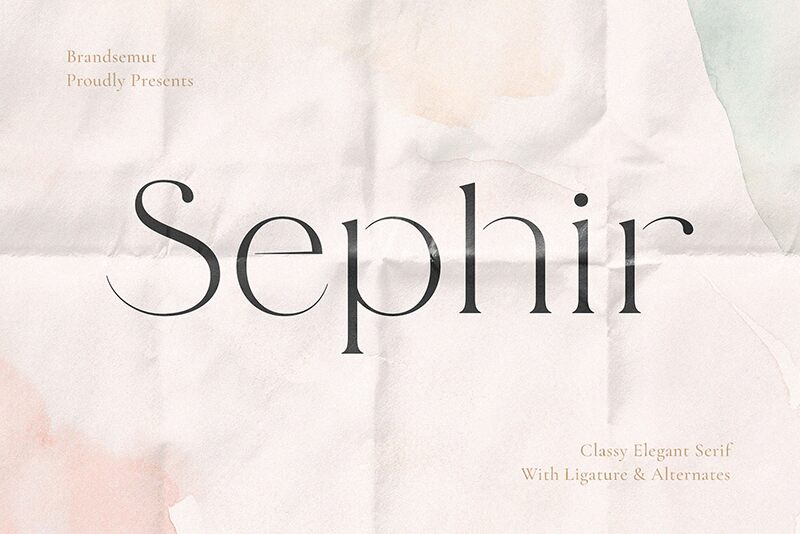
Sephir Regular
Sephir, a creation of BrandSemut, is a serif font that exudes elegance and sophistication. Its flowing curves blend seamlessly with the sharp, structured serifs, crafting a balanced harmony between classic and contemporary style. The font's generous proportions convey a sense of grandeur and formality, making it a splendid choice for upscale branding, editorial design, and any context requiring a touch of finesse.
With Sephir's stately presence and stylish flair, it becomes an ideal selection for designers seeking to impart an air of luxury and impeccable taste onto their projects. Whether gracing the pages of a boutique catalogue or the masthead of an influential publication, Sephir stands as a testament to the timeless allure of well-crafted typefaces.